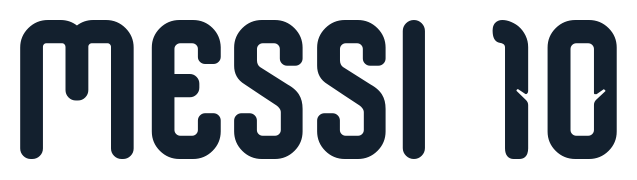
Argentina 2026 World Cup Font Kit - Albiceleste Jersey Number Style
The Argentina 2026 World Cup Font Kit captures the iconic black lettering style of Argentina's legendary home kit typography for your own designs. With its clean, bold outlines perfect for blue-white striped backgrounds, this font brings the champion spirit of La Albiceleste to jerseys, posters and graphics. Ideal for fans, designers and printers celebrating Messi's legacy and Argentina's three World Cup triumphs.
Complete A-Z uppercase letters and numbers 0-9
Accented characters for Spanish names (e.g., Á, É, Í, Ñ, Ó, Ú, Ü)
Bold style optimized for Argentina's light blue/white kit colors
Perfect for custom jerseys with Messi 10, namesets, scoreboards, posters, social media thumbnails, banners and fan merchandise. The black outlines ensure excellent contrast on the classic striped design shown in your preview image.
Authentic Argentina style: Matches the official typography for the 2026 home kit
The sharp, readable design gives your creations that professional tournament look, especially powerful for celebrating Argentina's dynasty.